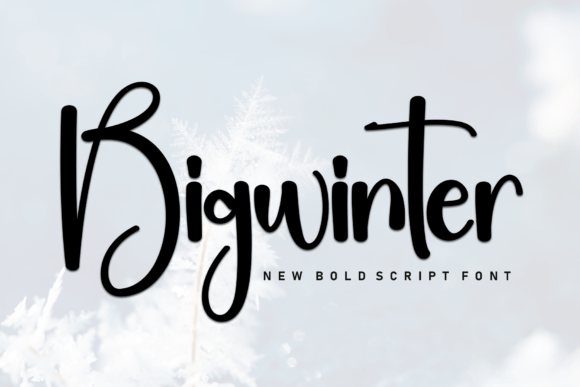
The Perfect Font for Making a Statement: Bigwinter Font
You’ve finally nailed the concept, spent hours brainstorming, and have a brilliant idea for your next creative project. But, there’s one crucial element missing – the perfect font to bring it all together. That’s where Bigwinter Font comes in. This playful script font is designed to make your text stand out with a fun, energetic feel, perfect for capturing the attention of your audience.
With its bold, marker-like strokes, Bigwinter Font is ideal for designers who want to add a casual, sporty vibe to their work. Whether you’re creating a logo, social media graphics, or a marketing campaign, this font is sure to bring a unique and energetic feel to your designs. Its versatility and playfulness make it a valuable addition to any designer’s toolkit.
Key Features of Bigwinter Font
- Unique Characteristics: The font features a unique blend of modern and vintage elements, with distinctive brushstrokes and subtle texture, making it ideal for creative and artistic projects.
- Kerning and Ligatures: The font includes advanced kerning and ligature pairs, ensuring smooth and professional typography, even in complex layouts and text arrangements.
Bigwinter Font Review
Bigwinter Font, in my opinion, is a decent display font with a unique aesthetic. ✨ The font’s bold, cursive lines evoke a sense of whimsy and playfulness, making it suitable for creative projects or designs that require a touch of personality.
- ✨ High legibility, making it easy to read, even in smaller font sizes.
- ✨ Versatile, as it can be used in various design contexts, from digital displays to print materials.
- ✨ Unique, as its distinctive style sets it apart from more generic fonts.
However, there are some limitations:
- ⚠️ Limited character set, which might be a concern for projects that require extensive typing.
- ⚠️ Not ideal for formal or professional designs, as its playful nature might not be suitable for serious content.
Overall, I think Bigwinter Font is a solid choice for designers who want to add a touch of creativity to their projects. While it may not be the best fit for every design, it’s definitely worth considering when you need a unique and eye-catching font.
Tips for Getting the Most Out of Bigwinter Font
Bigwinter Font is perfect for creating elegant and rustic designs. To get the most out of it, use it for:
- Rustic-themed packaging and labels
- Vintage-inspired advertising and marketing materials
Bigwinter Font is commonly used for:
- Creating a warm and inviting atmosphere
- Adding a touch of elegance and sophistication
- Creating a unique and memorable brand identity
Alternatives to Bigwinter Font for Designers
Carolyna Pro is a modern, elegant script font suitable for invitations, weddings, and other high-end events. It’s a great alternative to Bigwinter Font for designers who need a sophisticated and luxurious feel.
Compared to Bigwinter Font, Carolyna Pro has a more refined and polished look, making it perfect for formal occasions. While Bigwinter Font has a more rustic and vintage feel, Carolyna Pro is ideal for designers who want to create a high-end, modern look.
Great Vibes is a beautiful, cursive script font perfect for creative projects, such as greeting cards, posters, and social media graphics. It’s a great alternative to Bigwinter Font for designers who need a fun and playful feel.
Compared to Bigwinter Font, Great Vibes has a more carefree and whimsical look, making it ideal for designers who want to create a fun and engaging atmosphere. While Bigwinter Font has a more rustic and vintage feel, Great Vibes is perfect for designers who want to add a touch of playfulness to their projects.